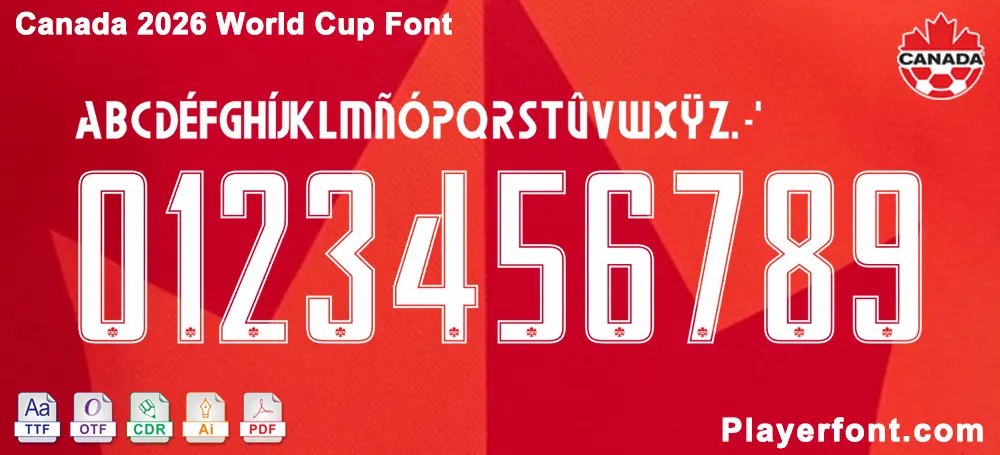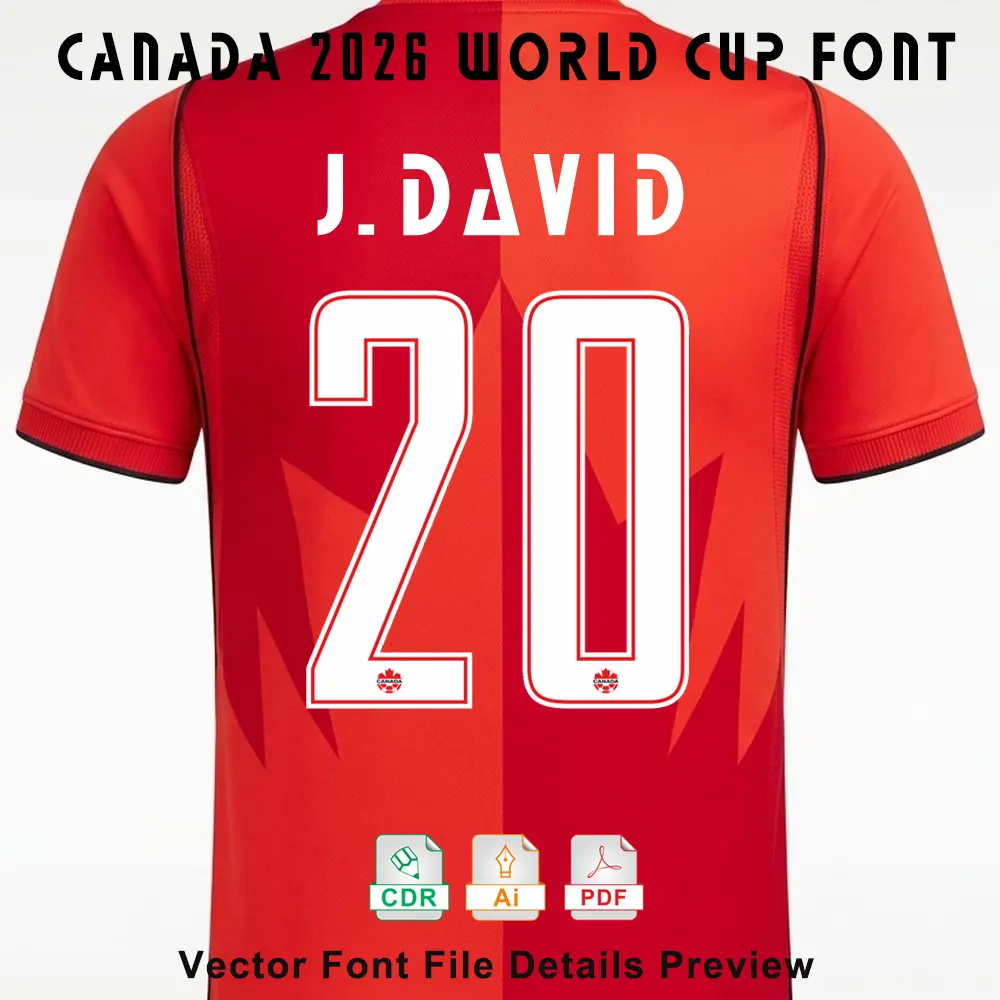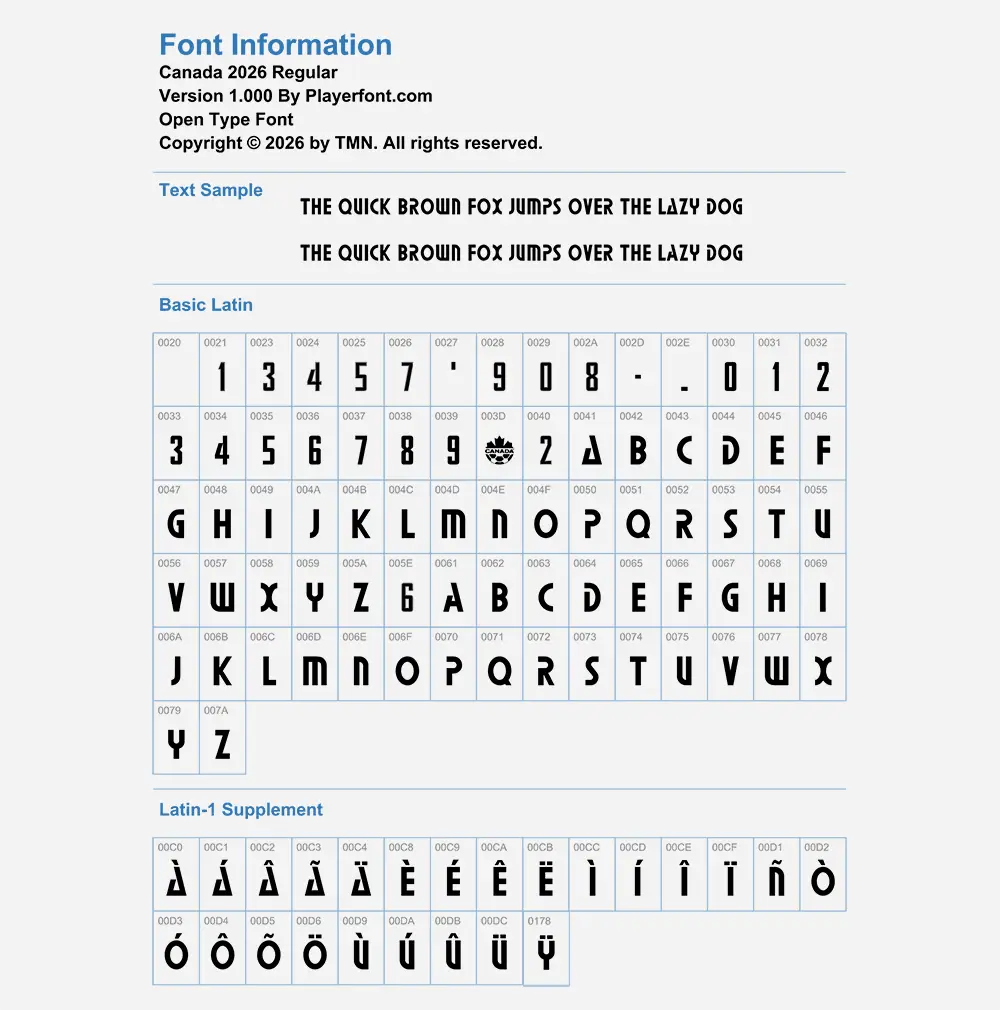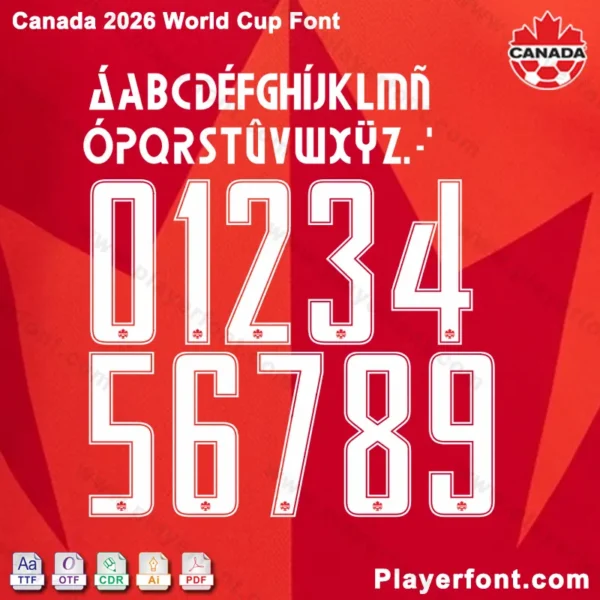
Elevate Your Designs with the Canada 2026 World Cup Font Kit
Prepare for the biggest stage in football with the Canada 2026 World Cup Font Kit. This premium typography collection captures the bold, modern aesthetic of the Canadian National Team’s identity. Whether you are a professional graphic designer creating sports apparel or a fan looking to customize your own jersey, this kit provides everything you need for a professional finish.
Full Character Map: Includes uppercase letters, numbers (0-9), and special accented characters (Latin-1 Supplement) for international player names.
Authentic Detailing: Includes the iconic Canadian maple leaf branding within the numbers, as seen on the official kits.